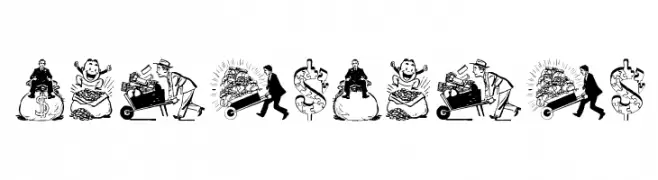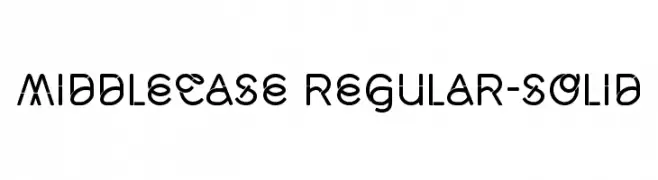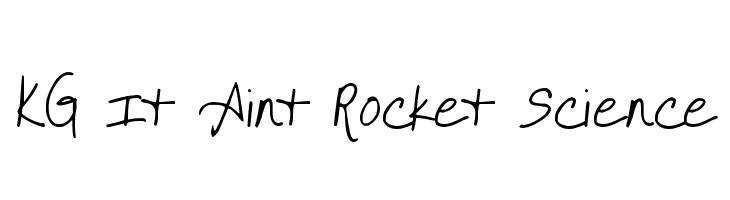
A futuristic, bold font with geometric shapes and sharp angles.
A bold, angular font with a futuristic and geometric design.
A bold, modern font with thick strokes and a strong, impactful presence.
A bold, gothic Blackletter font with ornate detailing and a playful t-shirt motif.
A bold, modern sans-serif font with a clean and geometric design.
Cartoonish, money-themed decorative font with detailed illustrations.
A playful, handwritten font with tall, narrow letters and a lively, informal style.
A modern, geometric font with rounded edges and consistent stroke width.